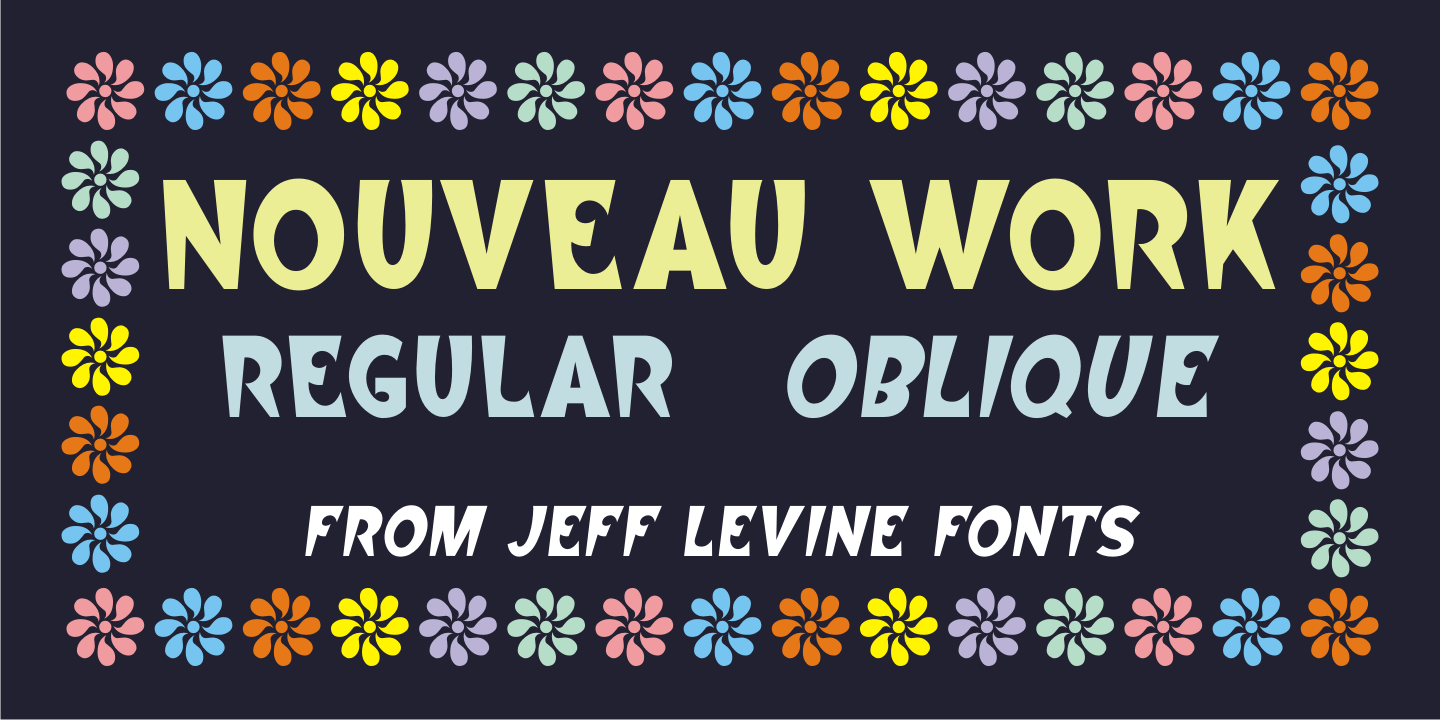
Nouveau Work
Based on the sheet music title lettering for Al Jolson's 1920 song 'Grieving for You”, the casual style of Nouveau Work JNL is available in both regular and oblique versions.